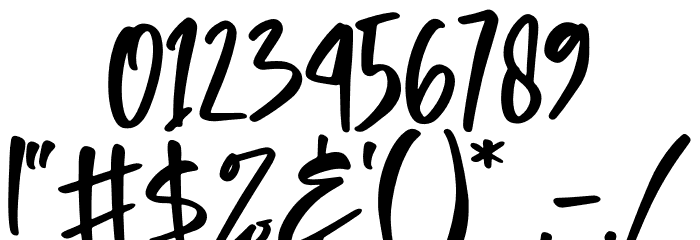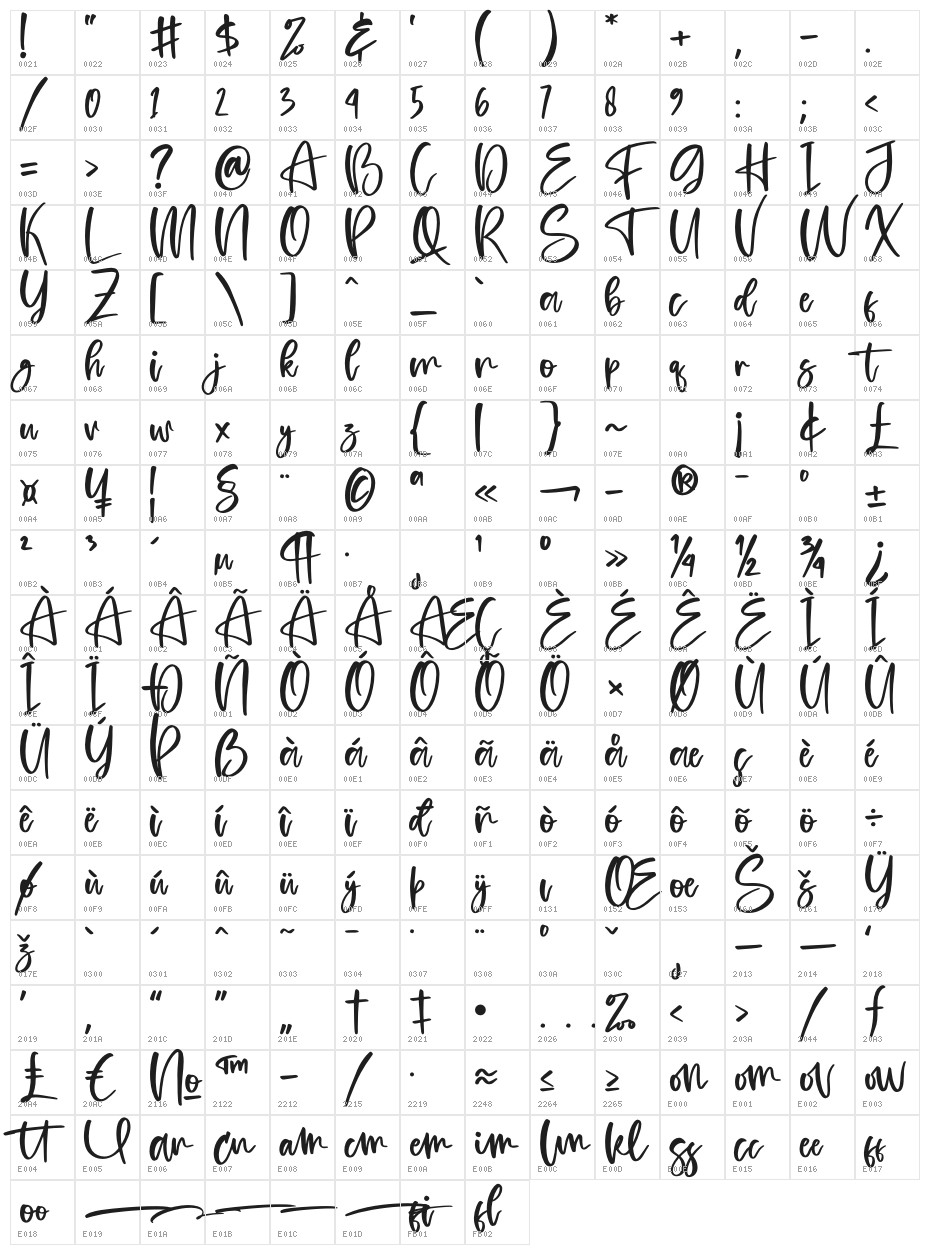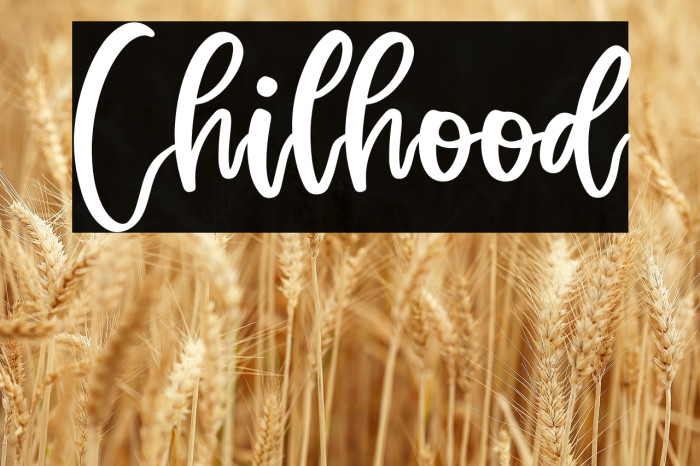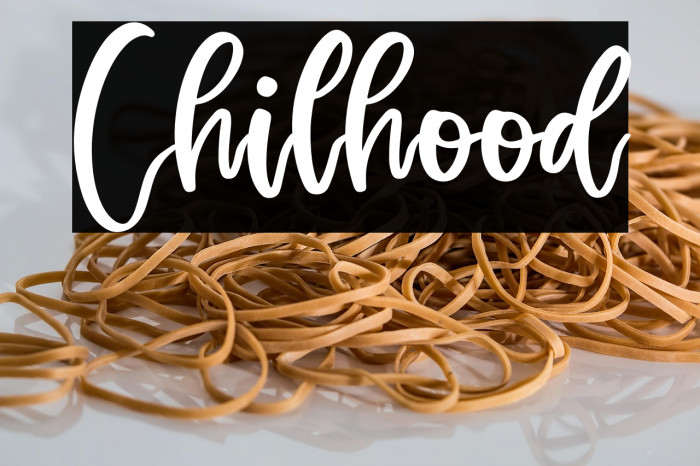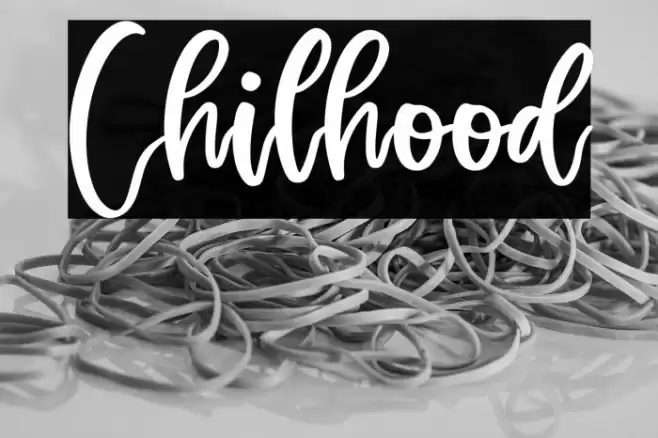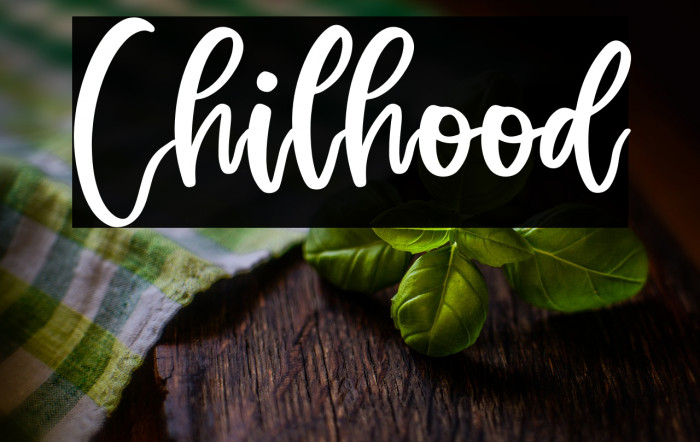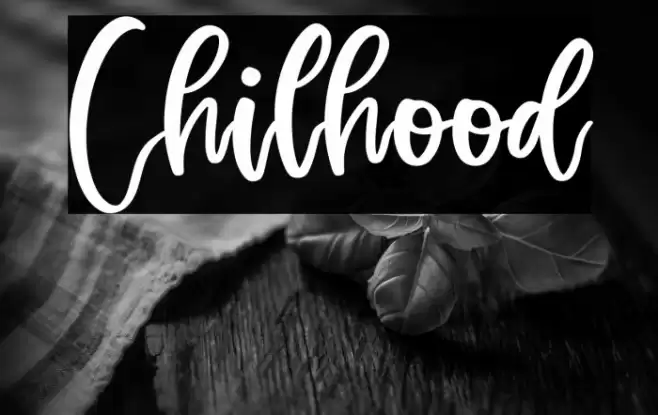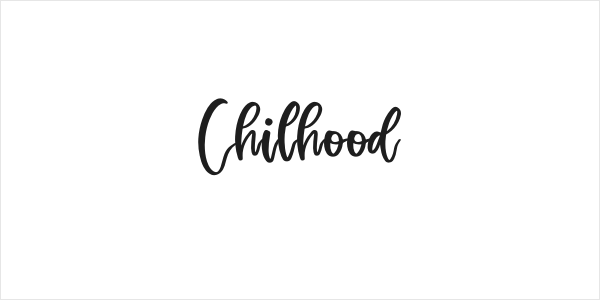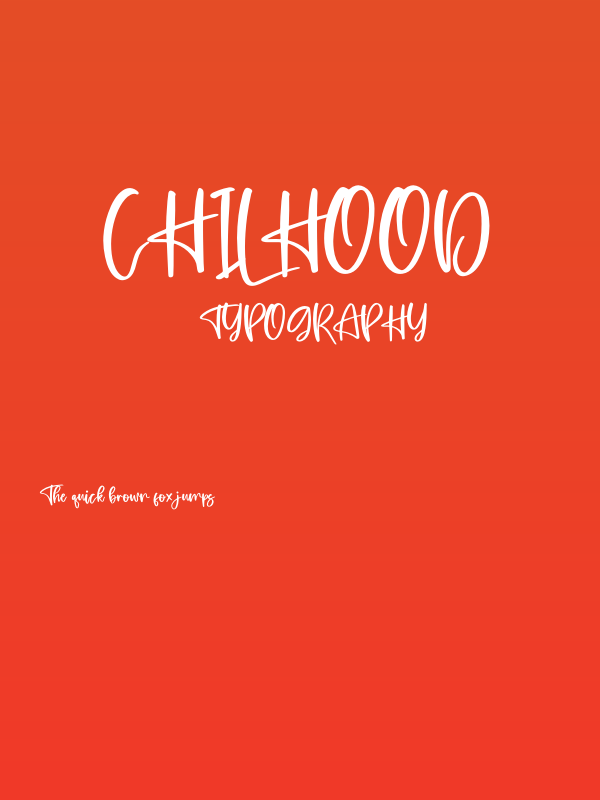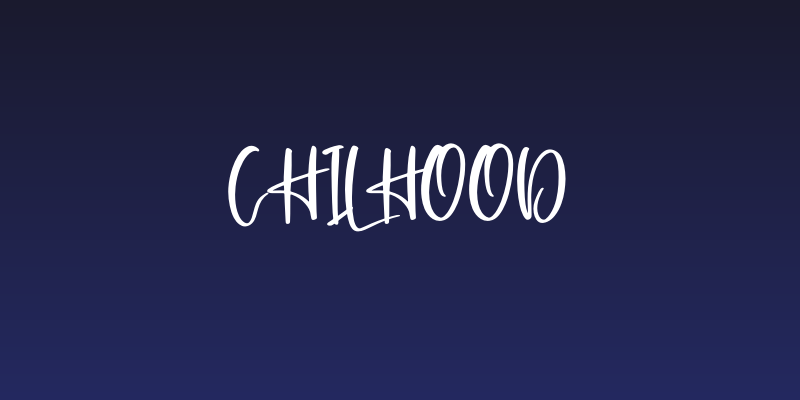
Chilhood Font
Chilhood Description
This font features a playful and energetic handwritten style, characterized by its fluid and dynamic strokes. The uppercase letters are bold and slightly slanted, giving a sense of movement and spontaneity. The lowercase letters maintain a consistent flow, with some letters extending below the baseline, adding to the casual and informal feel. The numbers and special characters are crafted with the same lively touch, ensuring a cohesive look throughout. This font's unique personality makes it ideal for projects that require a personal and approachable touch.
| Overall Style | Casual and playful |
| Use Case | Headlines, Logos, Social media graphics |
| Proposed Projects | Ideal for greeting cards, invitations, social media graphics, and branding projects that require a personal touch. |